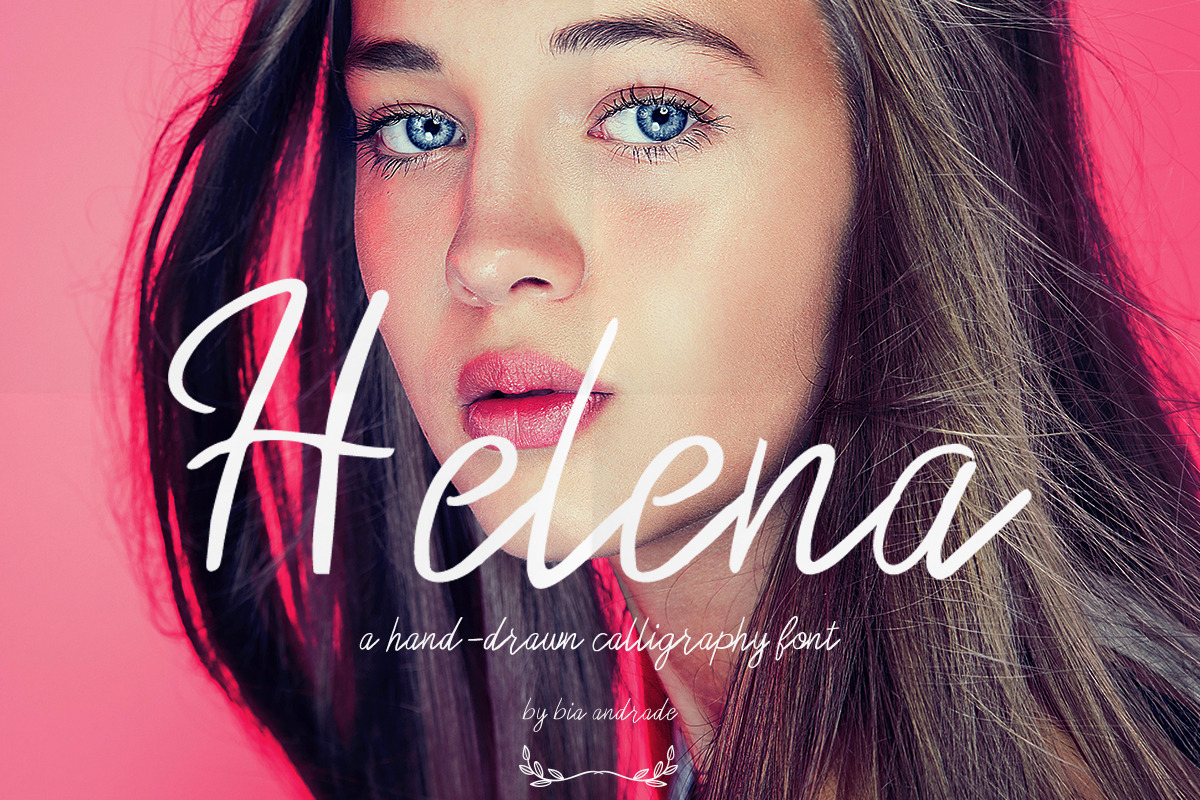
Helena a hand-drawn calligraphy font
Introducing Helena a hand-drawn calligraphy font.
Helena results out of a stunning pairing of a brush pen and pencil that makes it look incredibly endearing and authentic. Use this gorgeous and unique handwritten font to bring any DIY project to life!
This font is perfect for:
• greeting cards
• packaging
• branding
• social media and more!
As the nature of the characters is hand-drawn some "wonky" lines might be found which helps to add another touch of organic in the font that resonates with my personal style!